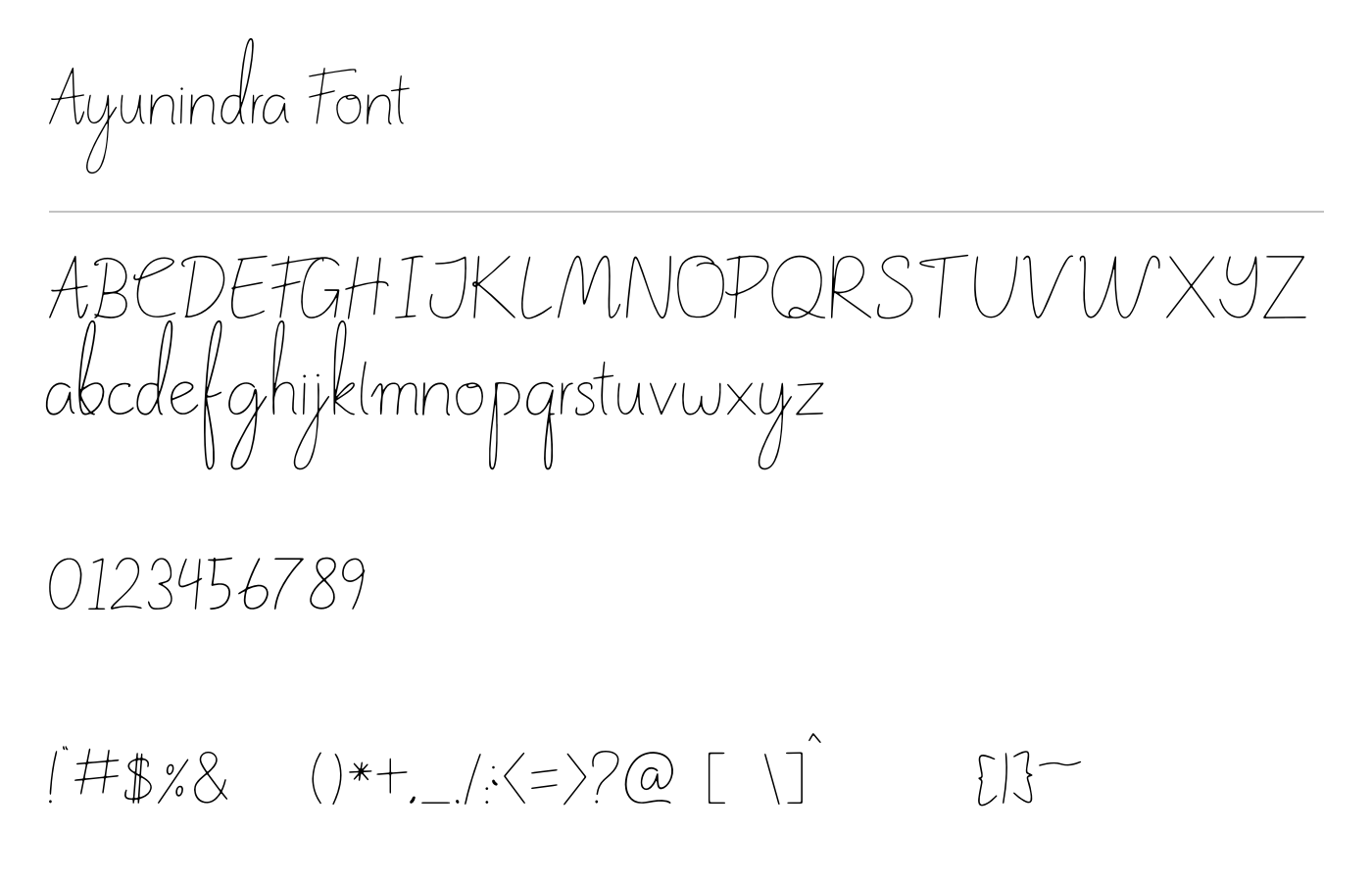
Ayunindra Font is a delicate, handwritten-style sans serif with a tall, narrow structure and a light, airy feel. Its thin strokes and playful yet elegant letterforms make it perfect for casual, creative projects that need a personal, approachable touch. This font works well in branding, invitations, and editorial designs where a subtle, handwritten charm is desired.
Ayunindra Font
About Ayunindra Font